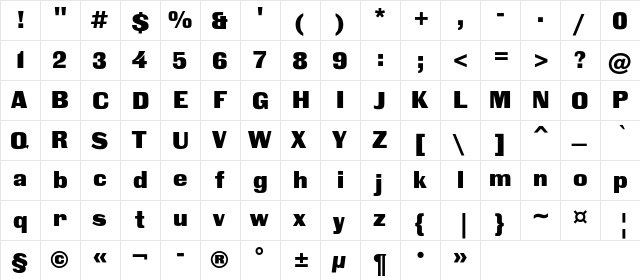
BlackGroteskC Regular
Design Context for BlackGroteskC Typeface
BlackGroteskC has the quiet confidence of well-executed sans-serif typography: versatile, unobtrusive, and dependable at any size.
Font Pairing: Works well alongside a characterful serif or display font that can carry the expressive load while BlackGroteskC handles the functional copy.
Pro Tip: Pair BlackGroteskC with a display or serif font for headlines — its neutral character makes it an excellent supporting player in complex typographic systems.